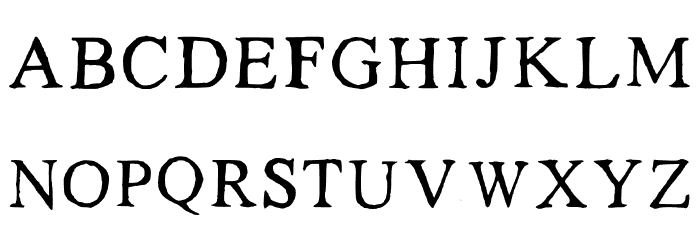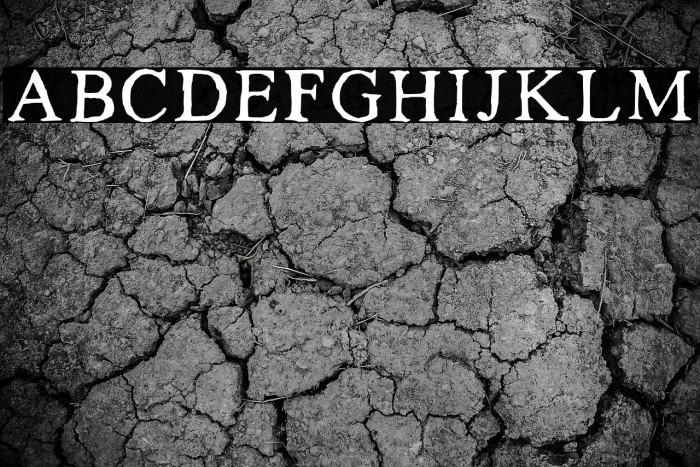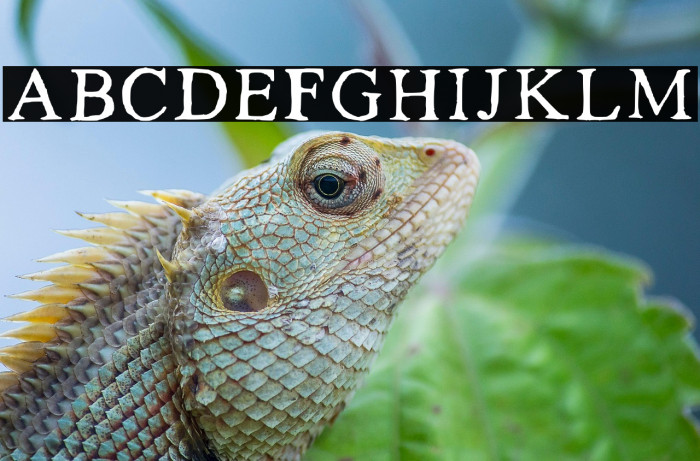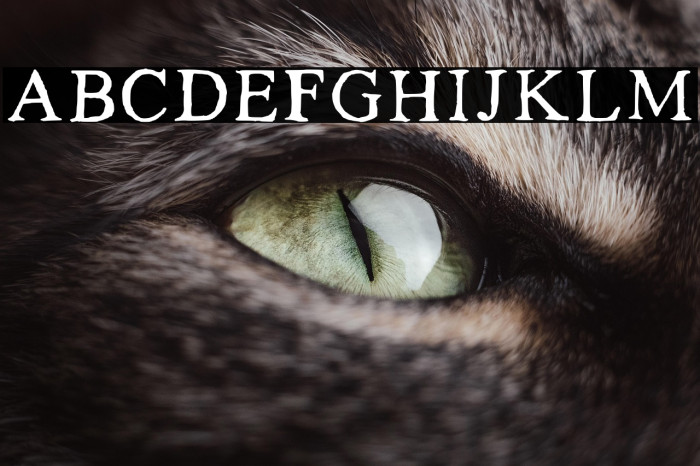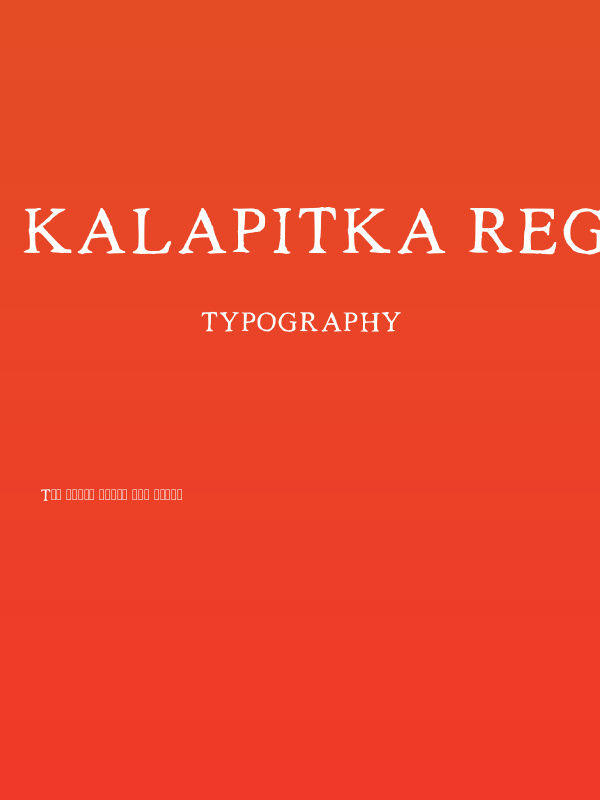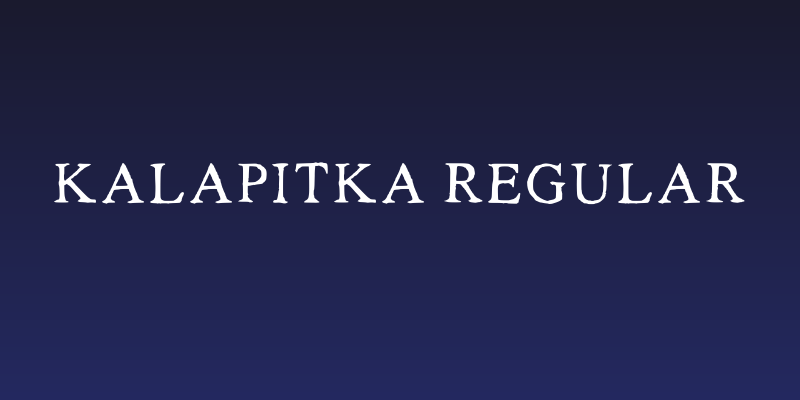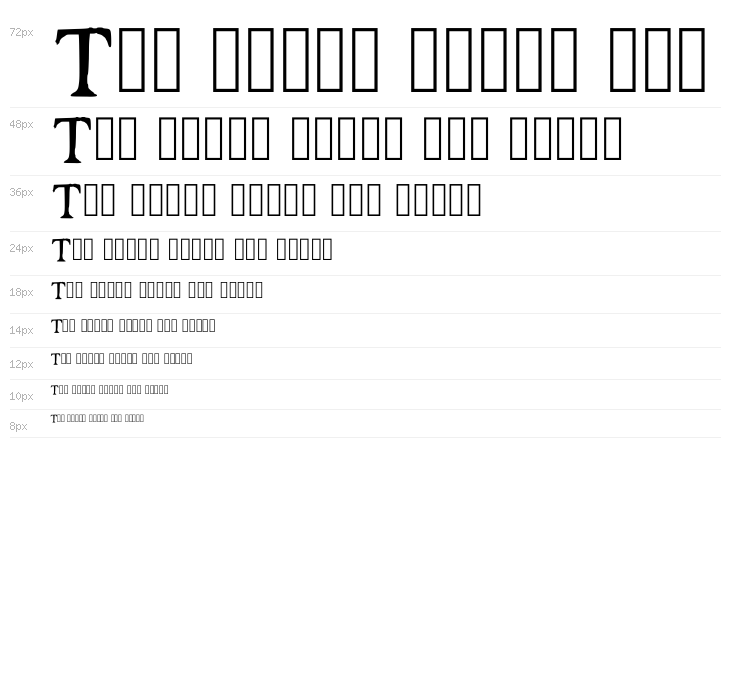
Kalapitka Regular Font
Kalapitka Regular Description
This font features a distinctive and artistic design, characterized by its sharp, angular serifs and slightly uneven stroke widths, giving it a hand-crafted appearance. The uppercase letters are bold and commanding, with a slight vintage flair that adds character and uniqueness. The lowercase letters maintain the same stylistic elements, ensuring consistency throughout the typeface. The numerals and special characters are designed to match the overall aesthetic, making this font suitable for creative and decorative purposes. Its unique style makes it stand out, while still maintaining readability.
| Proposed Projects | Ideal for branding, poster design, book covers, and any project requiring a distinctive and artistic touch. |